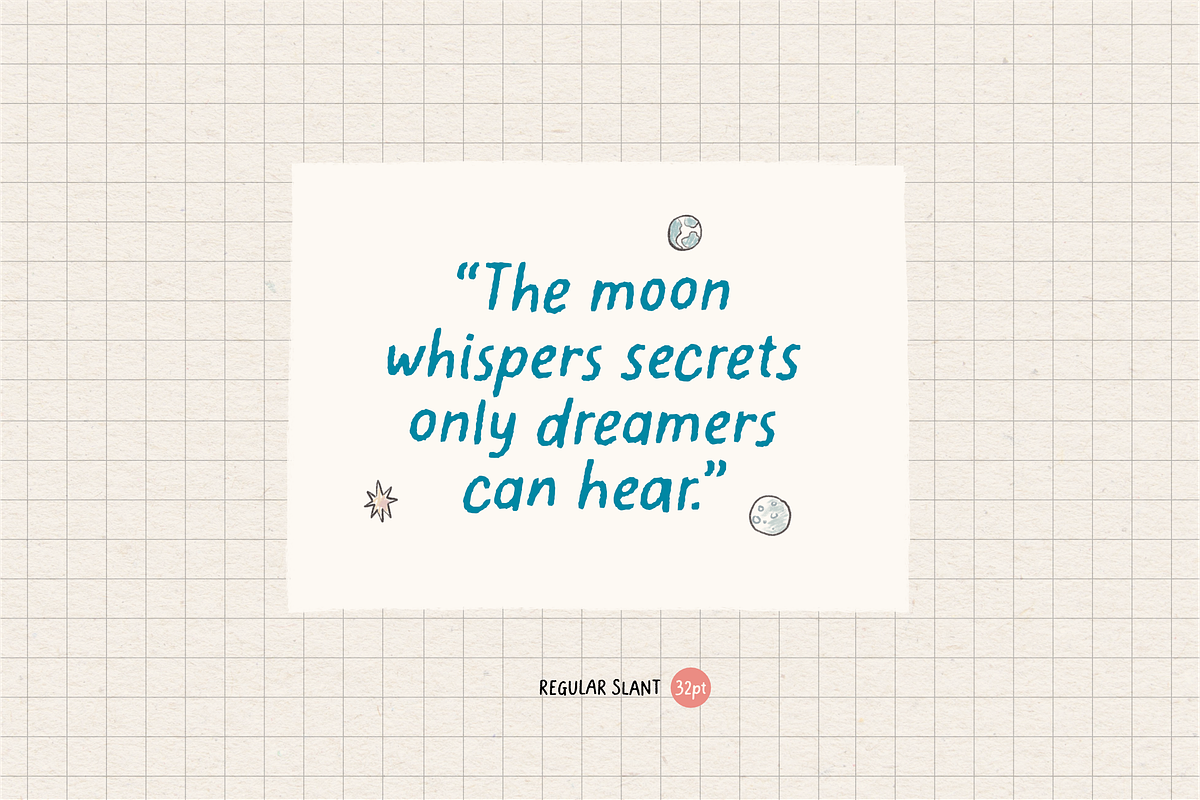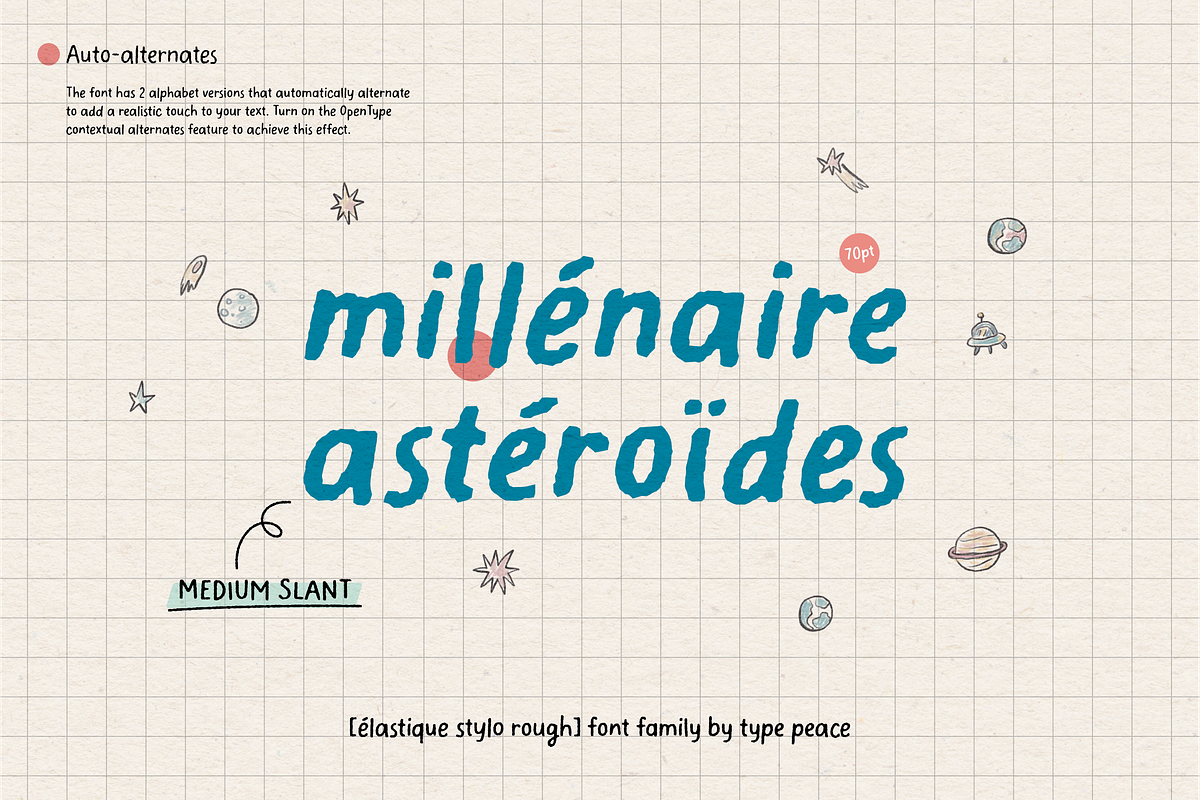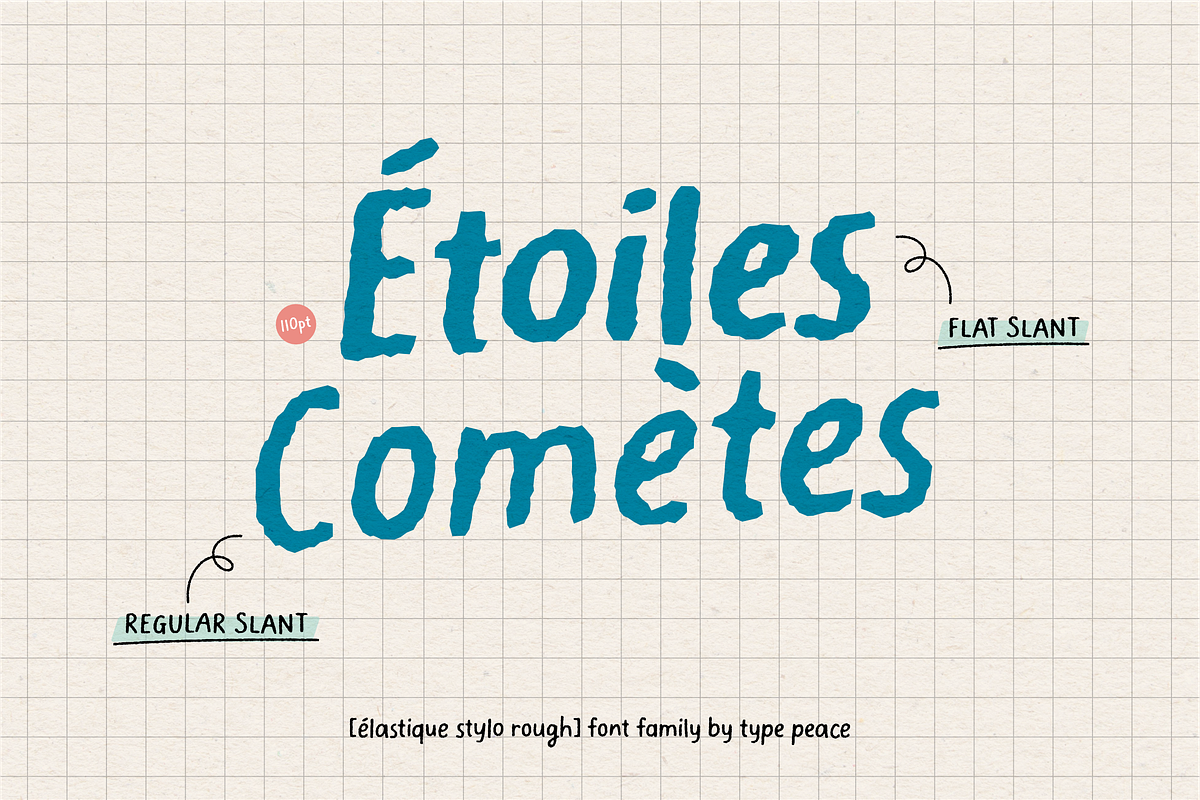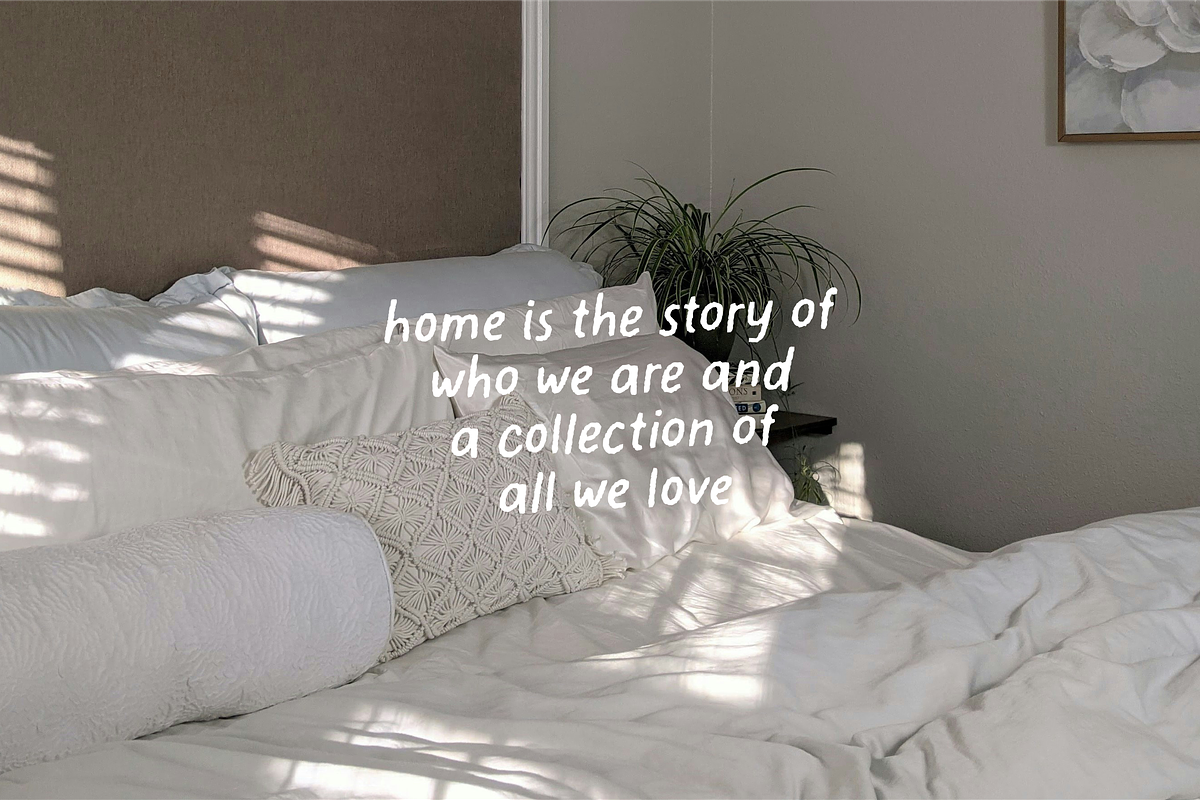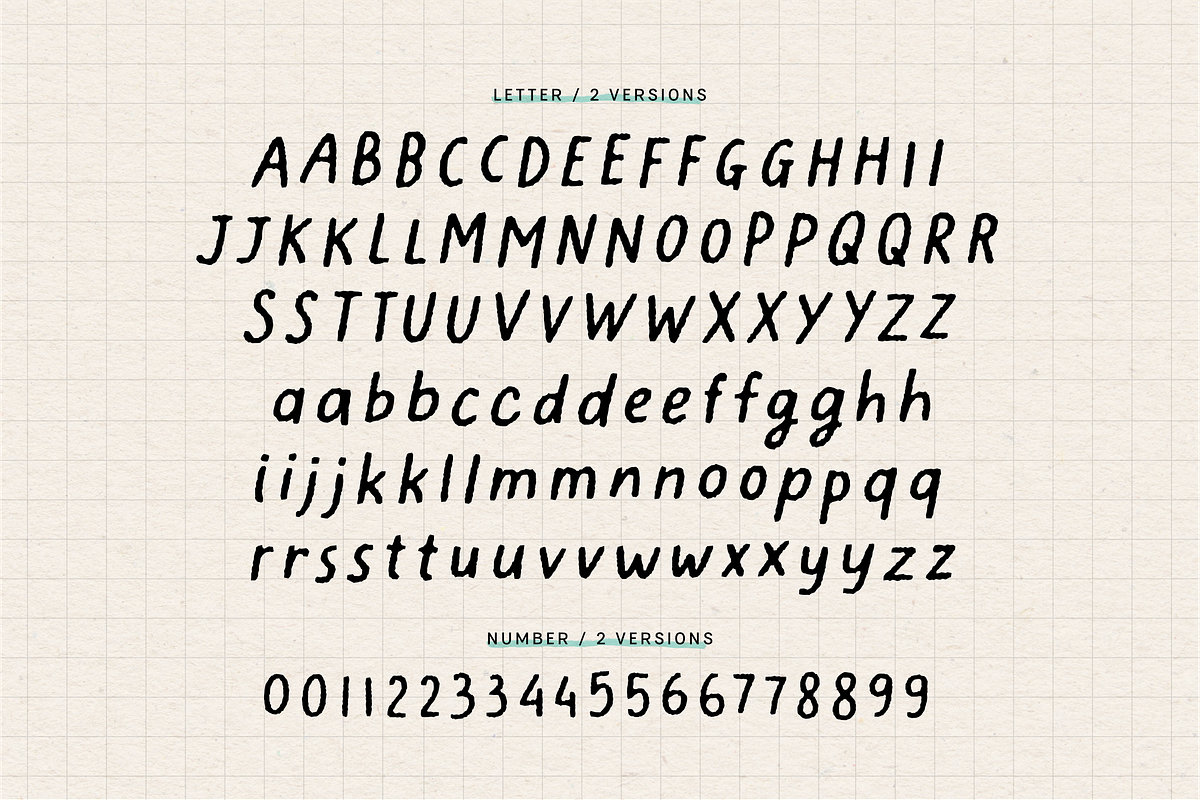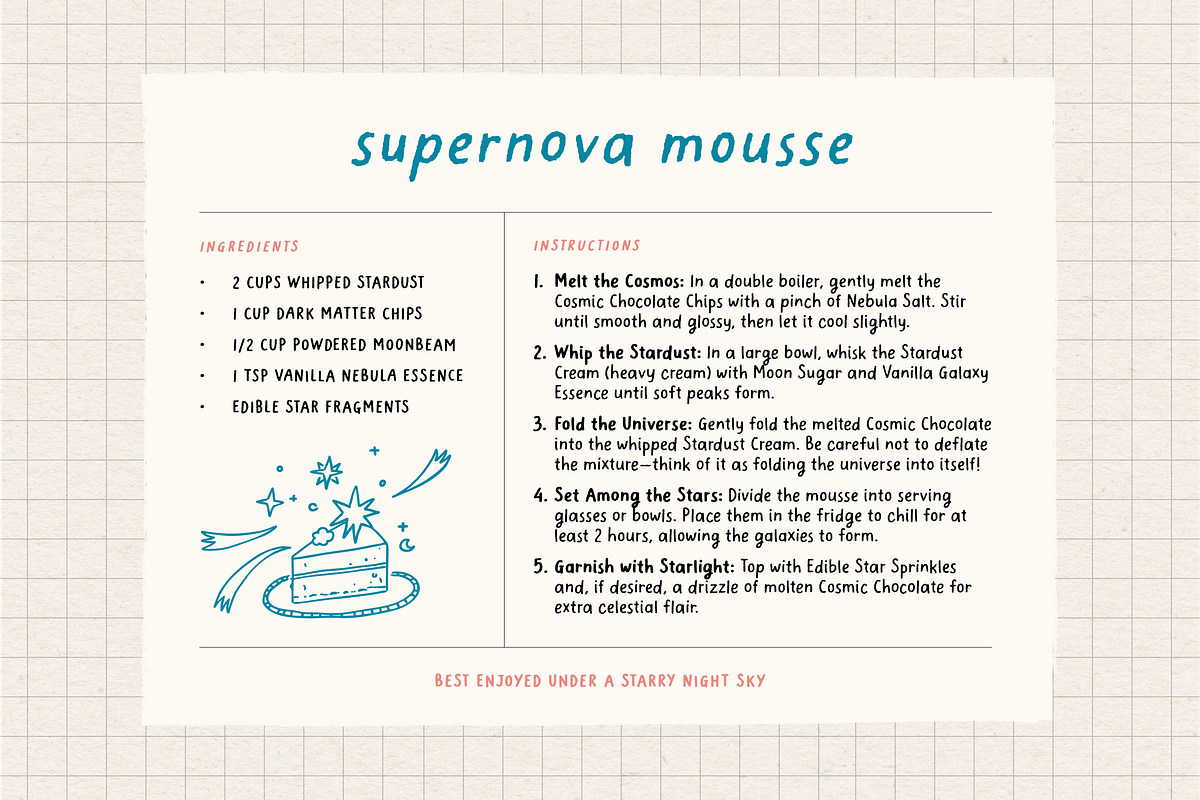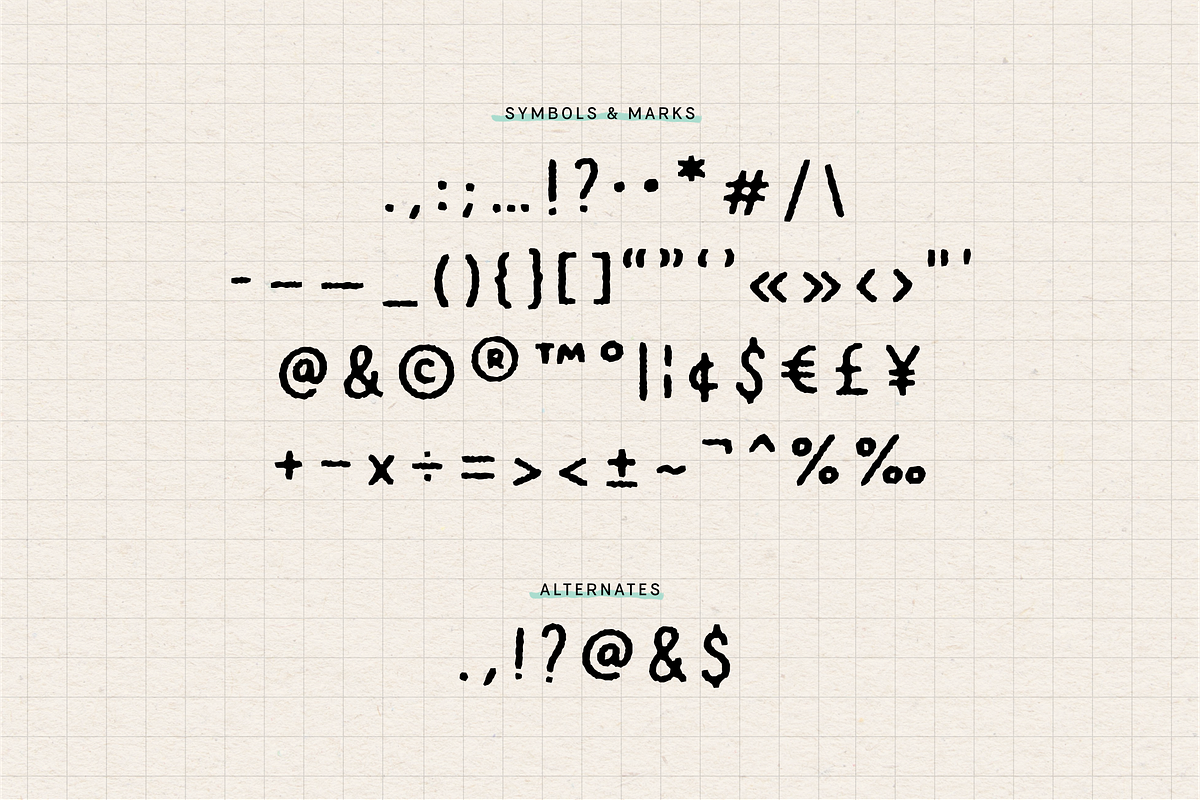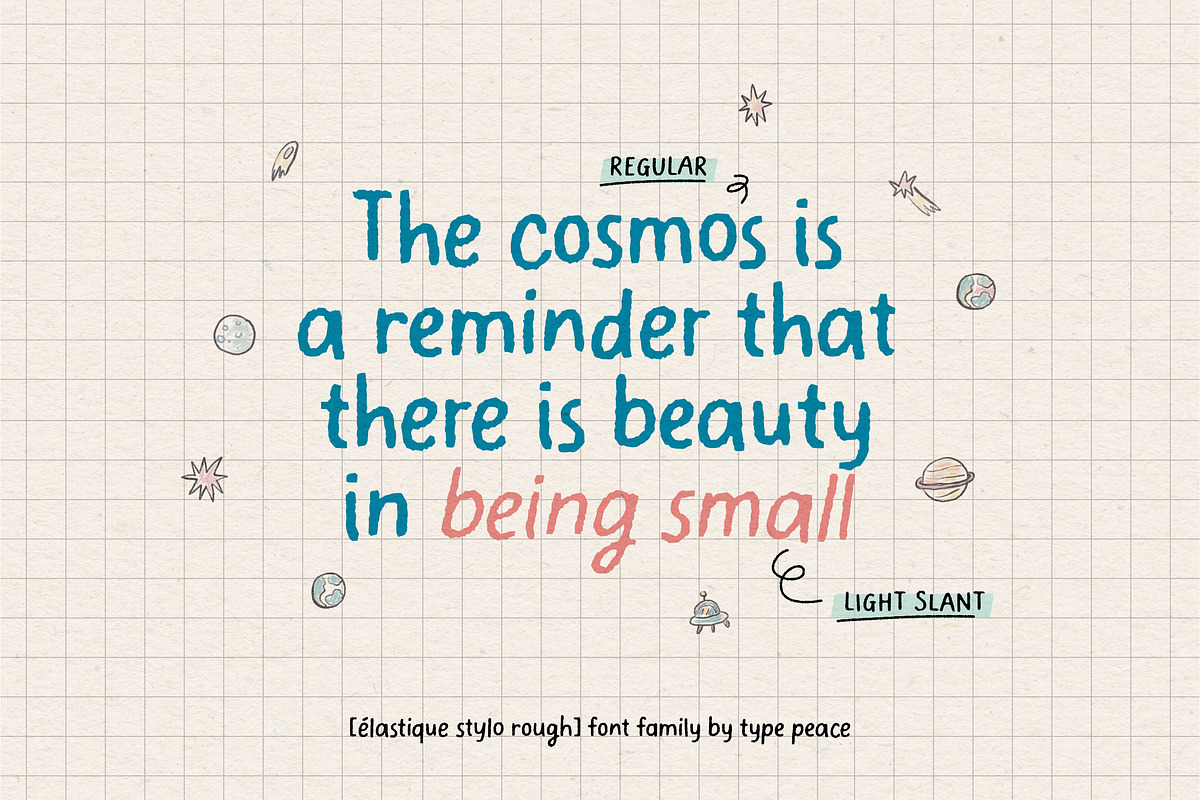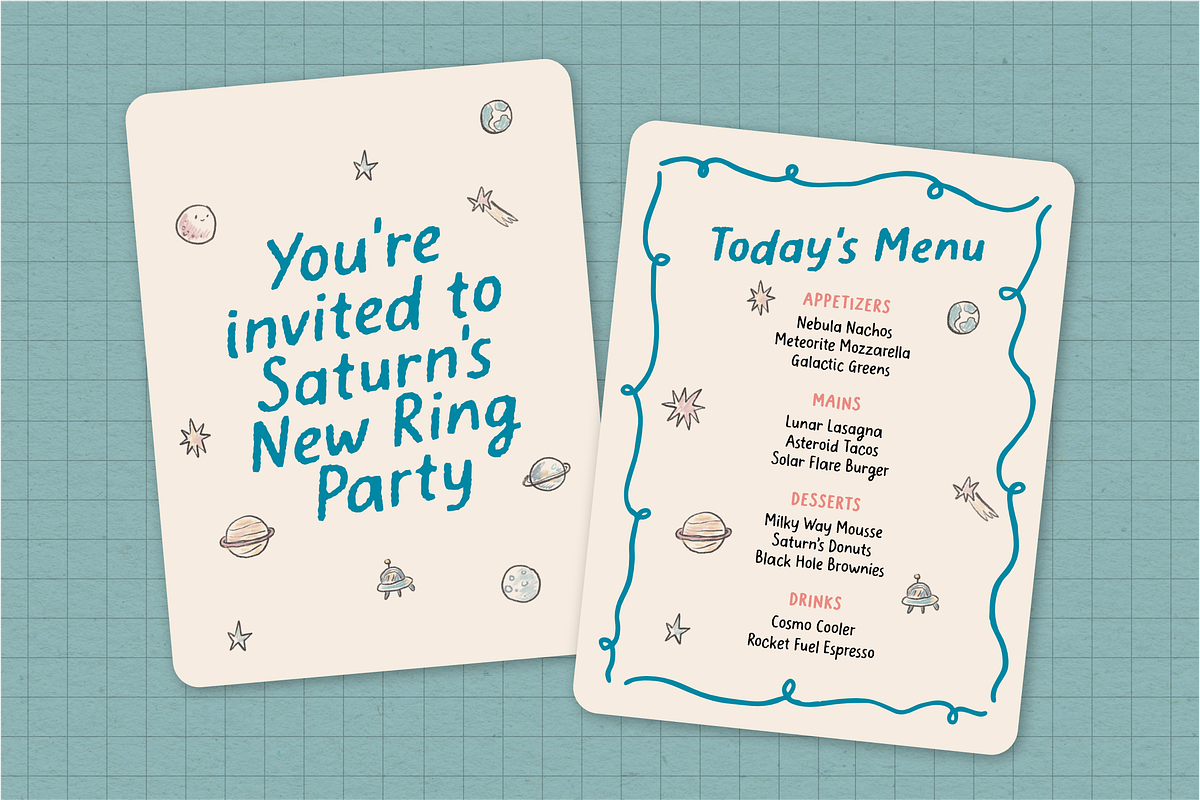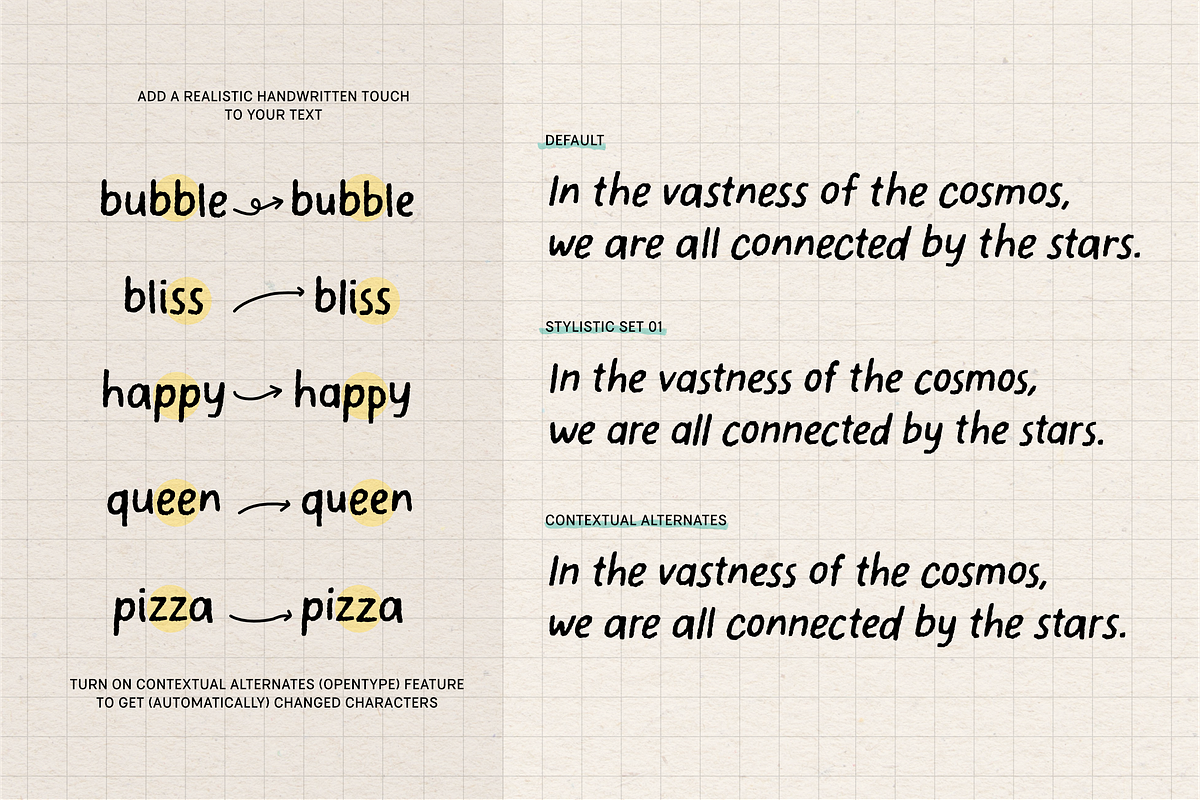
Elastique Stylo Rough - 10 Fonts
Elastique Stylo Rough, a sub-family of the Elastique Stylo Font Family, features a charming, textured finish that adds personality and authenticity to your designs. This sub-family of 10 fonts is perfect for rustic, handmade, or organic-themed projects. Whether you're designing packaging, posters, or merchandise, Elastique Stylo Rough brings warmth and a handcrafted touch to your work.
Enable the OpenType Contextual Alternates feature to alternate between different letter versions, giving your text an authentic and realistic handwritten feel.
5 Weights - Upright & Slanted Fonts
- Light & Light Slant
- Regular & Regular Slant
- Medium & Medium Slant
- Flat & Flat Slant
- Bold & Bold Slant
Font features:
- 2 versions for each letter and number
- Punctuations and symbols with some alternates
- Opentype contextual alternates feature
Script: Latin
Supported Languages: English, Western European, Central European, Vietnamese